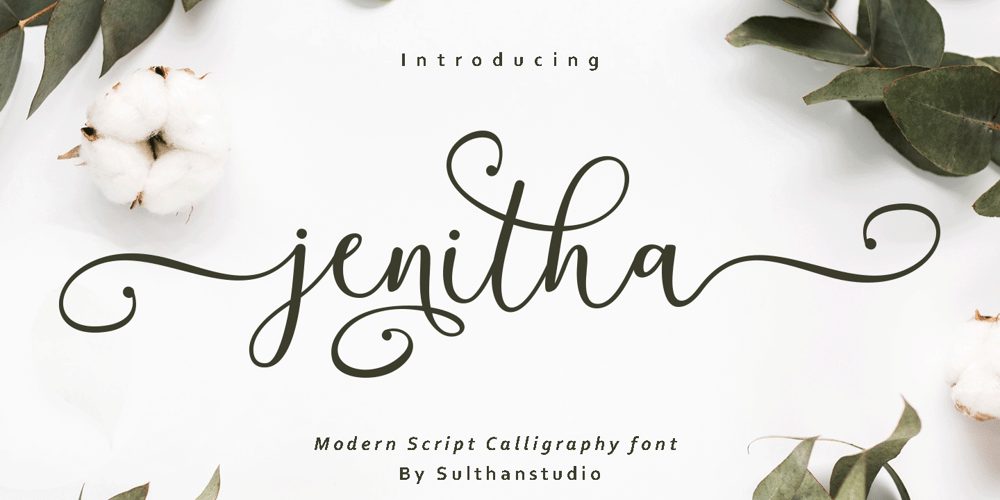
Jenitha
Jenitha font
Jenitha Font Family was designed by Nasrullah and published by Sulthan Studio. Jenitha contains 1 styles and family package options. Introducing JenithaA script font with a smooth calligraphy modern style. Comes with 500 glyphs. Jenitha is perfect for branding projects, homeware designs, product packaging, use in name card, invitation cards, etc. Simply as a stylish text overlay to any background image or anything requiring a sprinkle of elegance.